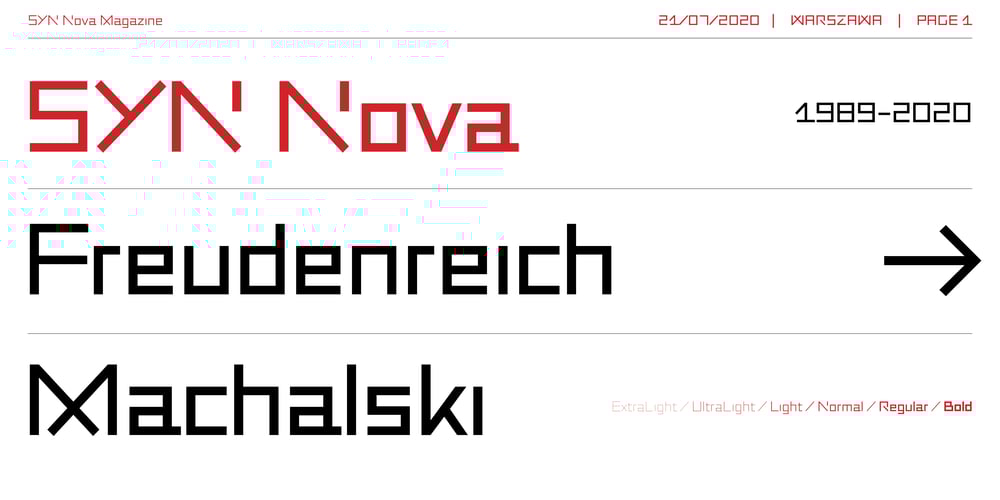
SYN Nova Font Family was designed by Mateusz Machalski, Wojciech Freudenreich and published by Machalski. SYN Nova contains 7 styles and family package options. SYN NOVA is a digitisation project of SYN – futuristic typeface designed by Wojeciech Freudenreich, famous polish graphic designer. Our concept, besides giving it a digital form, was to expand the character set, design minuscule and opentype features for the typeface. Together with Wojciech Freudenreich we created 4 new weights. The complete family (5 styles & Variable Font Version) is distributed under open and free font license.Subsidised by the National Centre for Culture under the programme Kultura w sieci